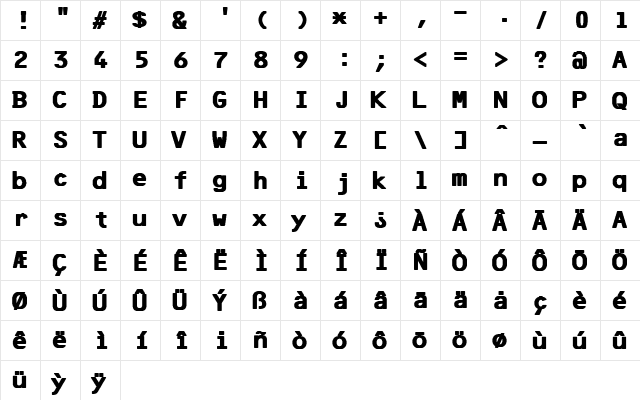
F25 Bank Printer Bold
Bold · Volker Busse, Berlin Volker Busse, Berlin ·
Foundry Volker Busse, Berlin
DesignerVolker Busse, Berlin
Design Context for F25 Bank Printer Typeface
F25 Bank Printer takes a measured approach to typography — its balanced proportions and neutral character make it a reliable workhorse for both digital and print work. The heavy weight commands attention and anchors typographic hierarchies.